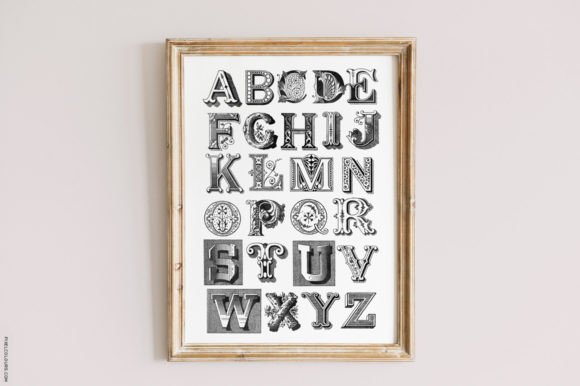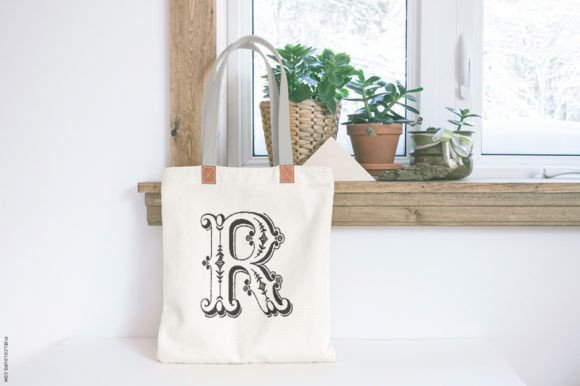
Antique Font
Antique Ornaments Alphabet Font is an ornamental vintage alphabet great for doing monogram products. Create POD products like tshirts, mugs, stickers, totes, or any design project that requires a signature element in a vintage style.